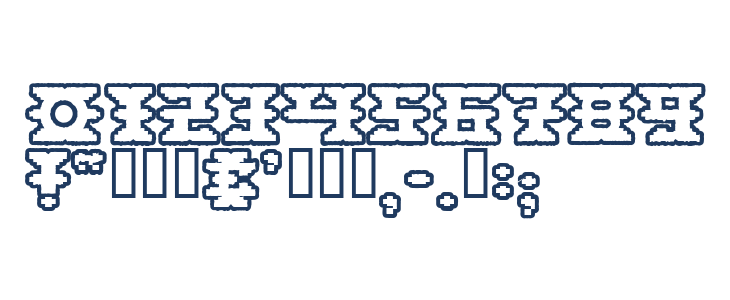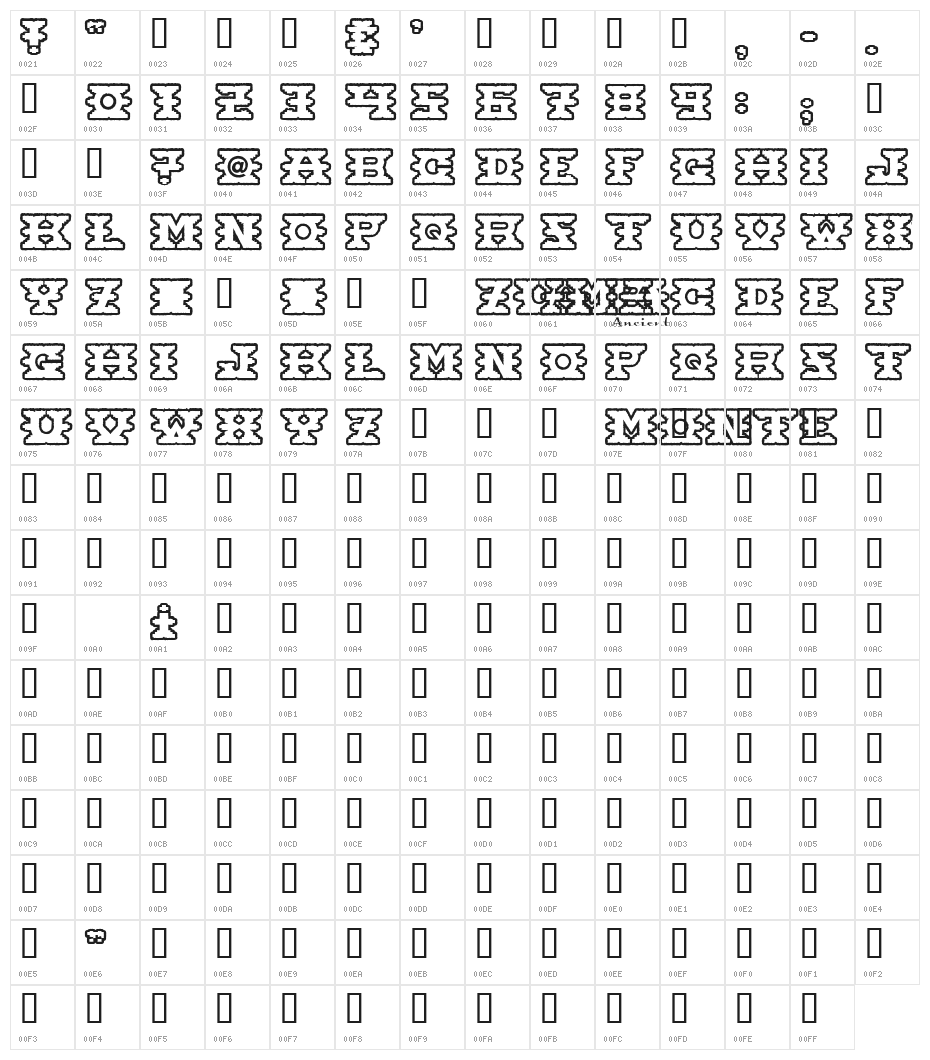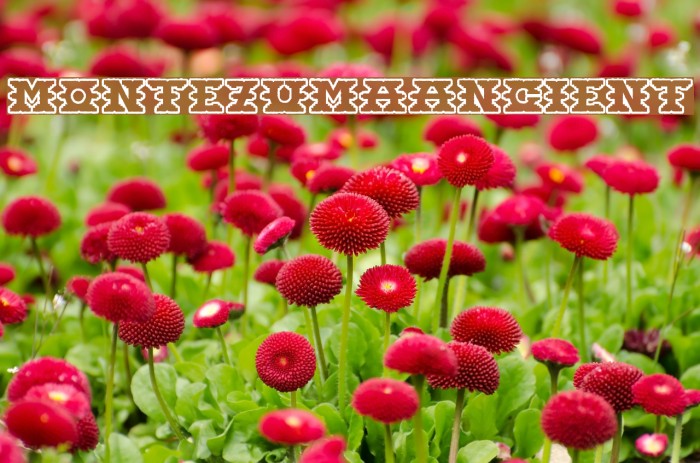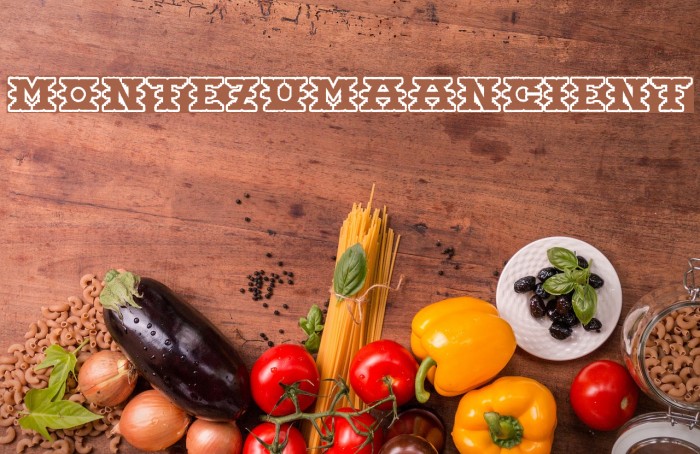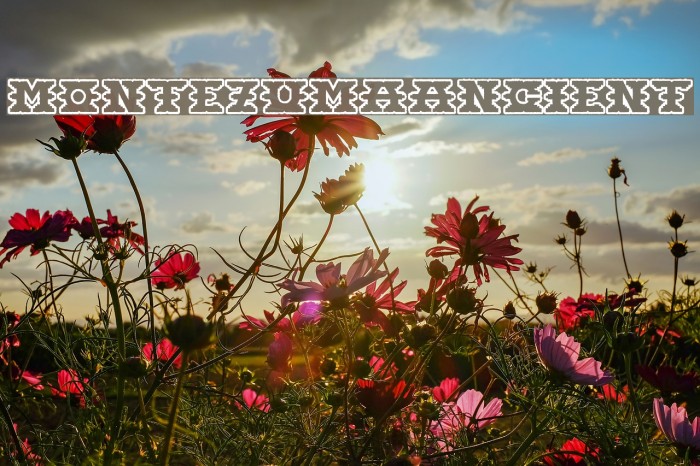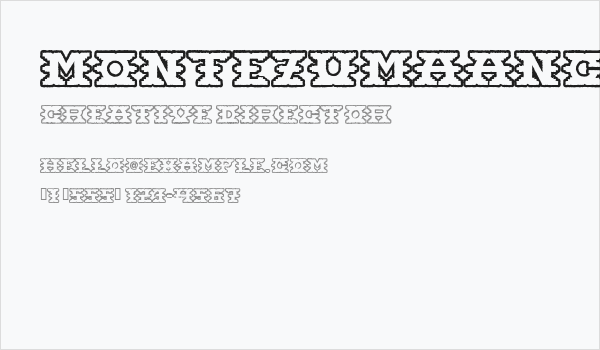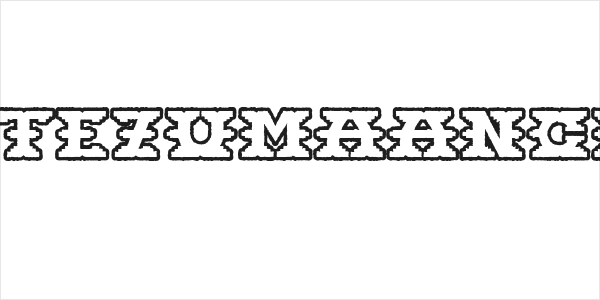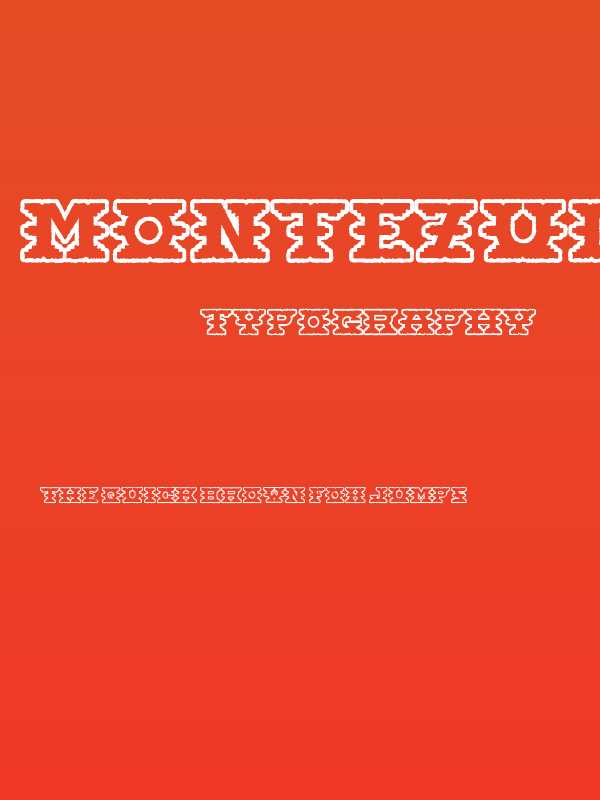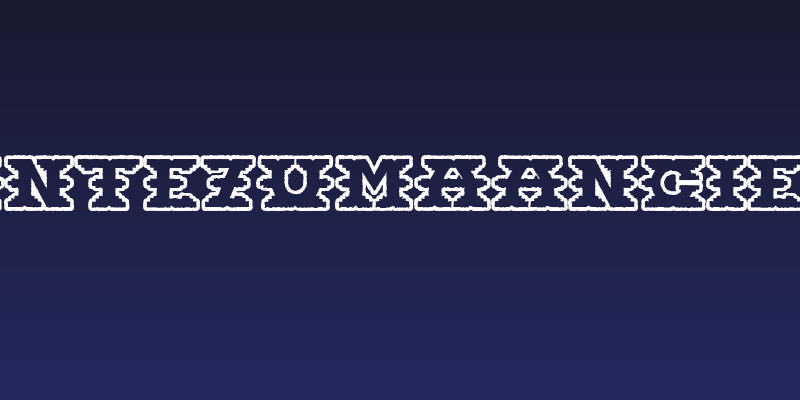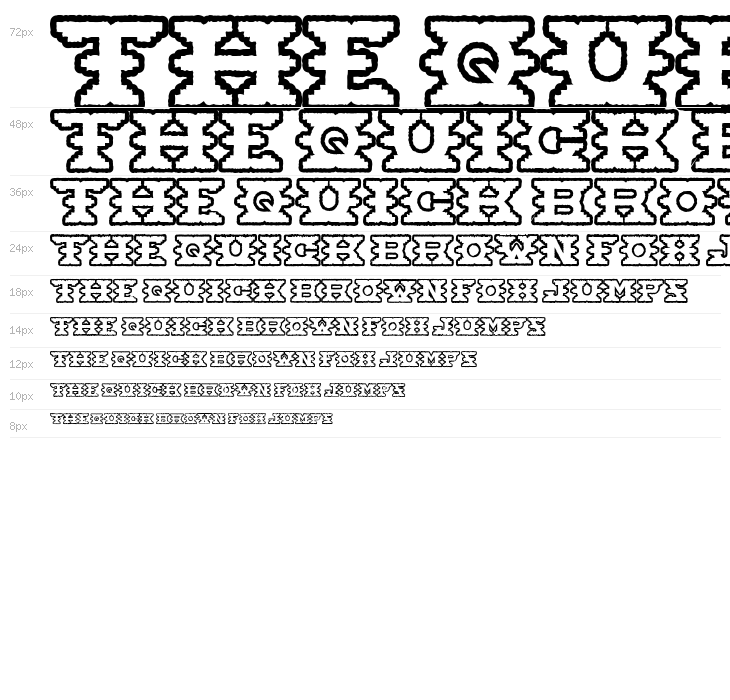
MontezumaAncient Font
MontezumaAncient Description
This font features a bold and decorative style with intricate patterns within each character, reminiscent of ancient or tribal designs. The characters are outlined with a thick, consistent stroke, giving them a strong presence. The geometric shapes within the letters add a unique and artistic flair, making it stand out for creative projects. The font maintains a uniform width across all characters, ensuring a balanced and cohesive look. Its distinct style is suitable for projects that require a touch of historical or cultural depth.
| Proposed Projects | Ideal for cultural event posters, themed party invitations, or historical documentaries. |